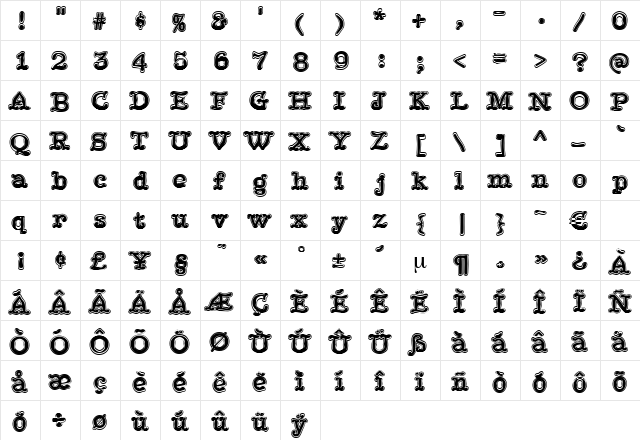
JukeboxInline Regular
Design Context for JukeboxInline Typeface
JukeboxInline brings ornamental detail and strong personality to headlines and identities, where visual impact matters more than quiet functionality.
Font Pairing: Pair with a clean neutral sans-serif for body copy to let JukeboxInline's character lead without overwhelming the composition.
Pro Tip: Treat JukeboxInline as the centrepiece of your typographic hierarchy. One strong heading set in a decorative face can carry an entire layout.